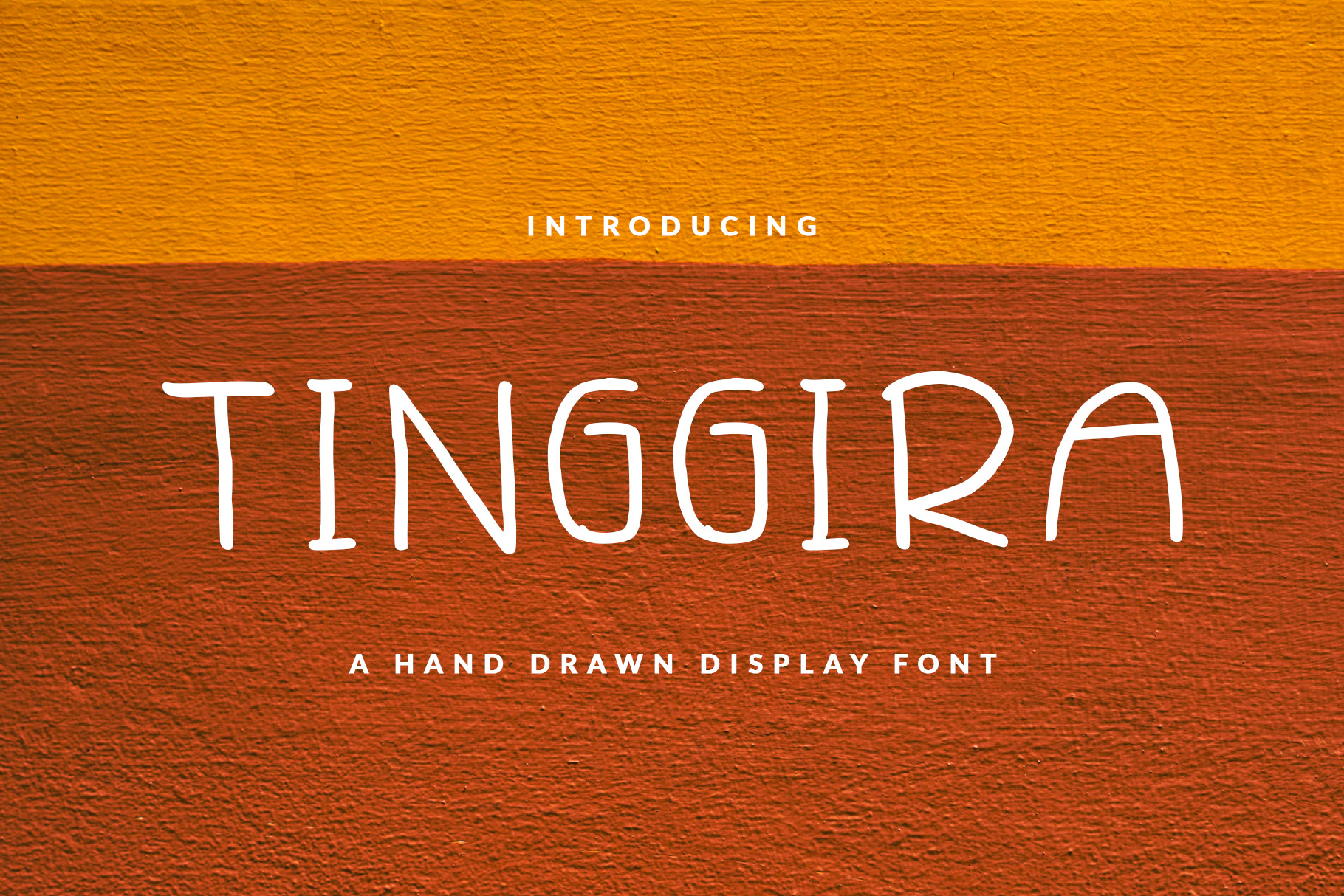
TINGGIIRA FONT BOOK & CHILDISH
Sans serif hand-drawn display font called TINGGIIRA was designed for modern, classic, feminine, unique and other style also fit for Header website, general use for header text, kids stories, books, poems and other long text